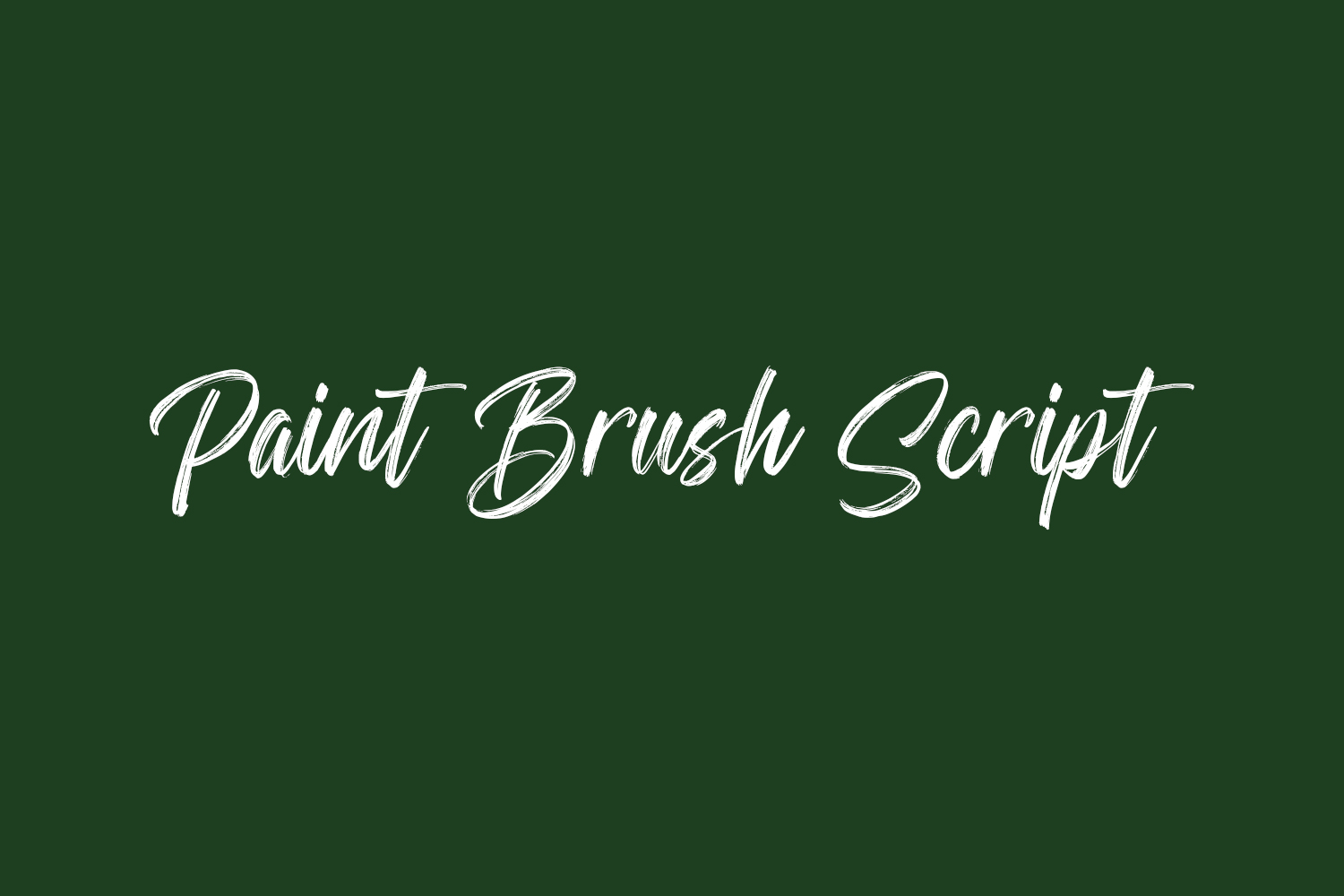
Introducing the Paint Brush Script Free Font – a harmonious blend of contemporary calligraphy with an organic touch. This font is an impeccable choice for diverse branding ventures, including logos, t-shirt designs, creative merchandise, and beyond. Its versatility ensures a remarkable visual impact across various applications. Paint Brush Script Free Font is free for personal use only. Please purchase the full version for commercial use.
Designed by Nirmana Visual